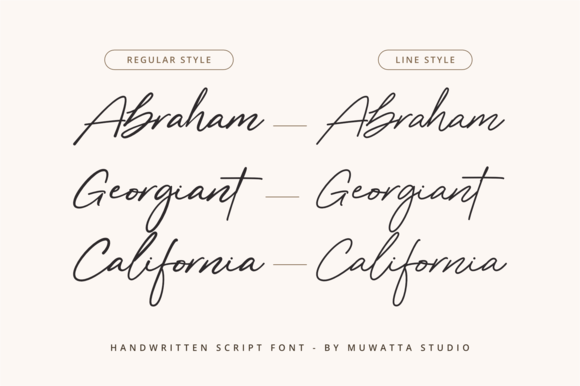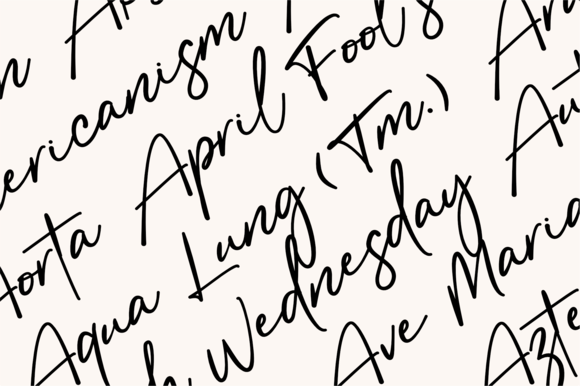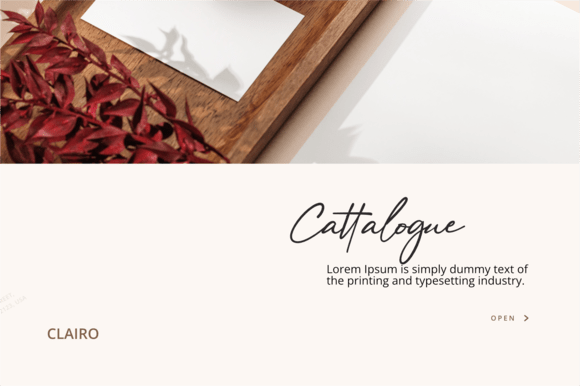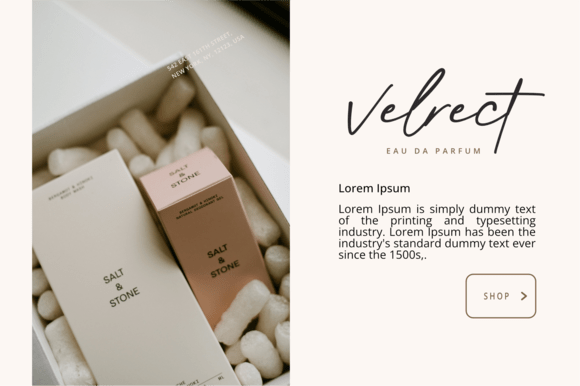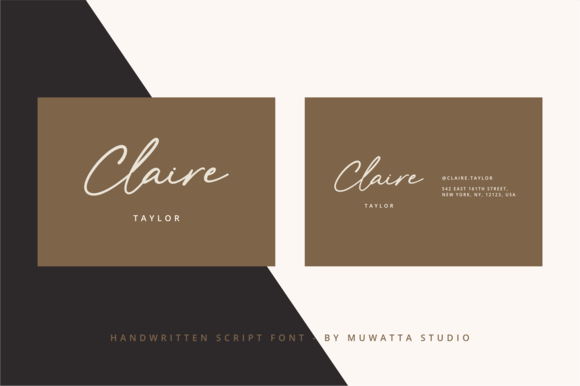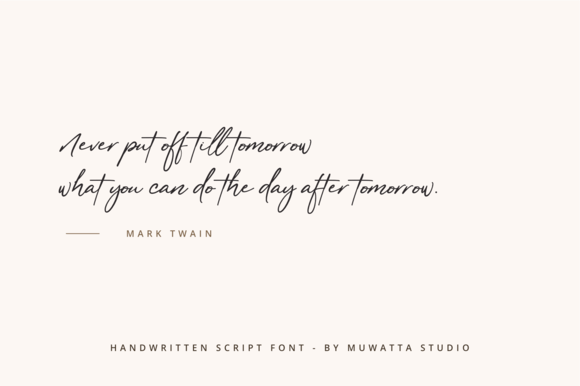
Discover the Elegance of Florida Island Font: Elevate Your Designs with Artistic Flair
In the realm of typography, few fonts manage to strike a balance between artistic expression and readability. Florida Island Font is one such exceptional typeface that seamlessly merges fluid lettering with precise stroke details, making it an ideal choice for designers and crafters looking to infuse their work with elegance and personality.
The Artistic Aesthetic of Florida Island Font
Florida Island Font is characterized by its expressive and artistic aesthetic, which is perfect for designs that require a touch of sophistication. The font’s fluid lettering and precise stroke details create a sense of movement and fluidity, making it an excellent choice for projects that demand a high level of creativity. Whether you’re designing wedding invitations, fashion logos, or cosmetic branding, Florida Island Font is sure to make your work stand out.
One of the most significant advantages of Florida Island Font is its versatility. The font effortlessly blends artistic aesthetics with readability, making it suitable for a broad spectrum of design requirements. From adding a personal touch to wedding invites to giving a chic edge to fashion logos, Florida Island Font is the perfect tool for designers looking to elevate their work.
Wedding Invitations and Stationery
Florida Island Font is an excellent choice for wedding invitations and stationery. The font’s elegant and sophisticated aesthetic adds a touch of luxury to any design, making it perfect for couples looking to make a statement. Whether you’re designing formal or informal wedding invitations, Florida Island Font is sure to impress.
Fashion Logos and Branding
Fashion designers and brands can also benefit from using Florida Island Font. The font’s chic and stylish aesthetic makes it perfect for creating fashion logos, labels, and branding materials. Florida Island Font adds a touch of sophistication and elegance to any design, making it ideal for high-end fashion brands.
Cosmetic Branding and Packaging
Cosmetic brands can also leverage Florida Island Font to create stunning branding and packaging materials. The font’s artistic and elegant aesthetic makes it perfect for creating labels, packaging, and marketing materials that stand out on store shelves.
Beyond Typography: Elevating Handmade Product Packaging and Social Media Quotes
Florida Island Font is not just limited to traditional design applications. The font can also be used to elevate handmade product packaging and create visually engaging quotes for social media platforms. Whether you’re a crafty entrepreneur looking to add a personal touch to your products or a social media influencer looking to create stunning content, Florida Island Font is an excellent tool to have in your design arsenal.
Handmade Product Packaging
Handmade product packaging is an essential aspect of any crafty business. Florida Island Font can help you add a touch of elegance and sophistication to your packaging materials, making your products stand out in a crowded market. Whether you’re selling jewelry, candles, or handmade soaps, Florida Island Font is sure to make your products look premium.
Social Media Quotes
Florida Island Font can also be used to create visually engaging quotes for social media platforms. The font’s artistic and elegant aesthetic makes it perfect for creating stunning quote graphics that are sure to grab the attention of your followers. Whether you’re a blogger, influencer, or business owner, Florida Island Font is an excellent tool for creating shareable content.
| Font Name | Florida Island Font |
| Author | Muwatta Studio |
Florida Island Font is more than just a font – it’s a pathway to soft, spirited messaging for designers looking to infuse their work with charm and personality. With its artistic aesthetic, versatility, and elegance, Florida Island Font is an excellent choice for designers and crafters looking to elevate their work. Whether you’re designing wedding invitations, fashion logos, or cosmetic branding, Florida Island Font is sure to make your work stand out.